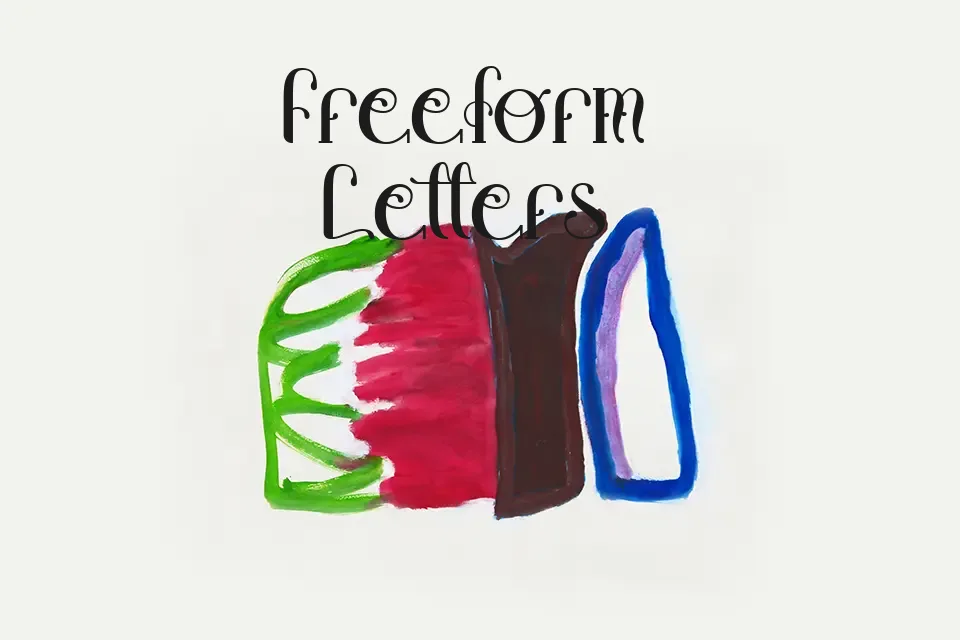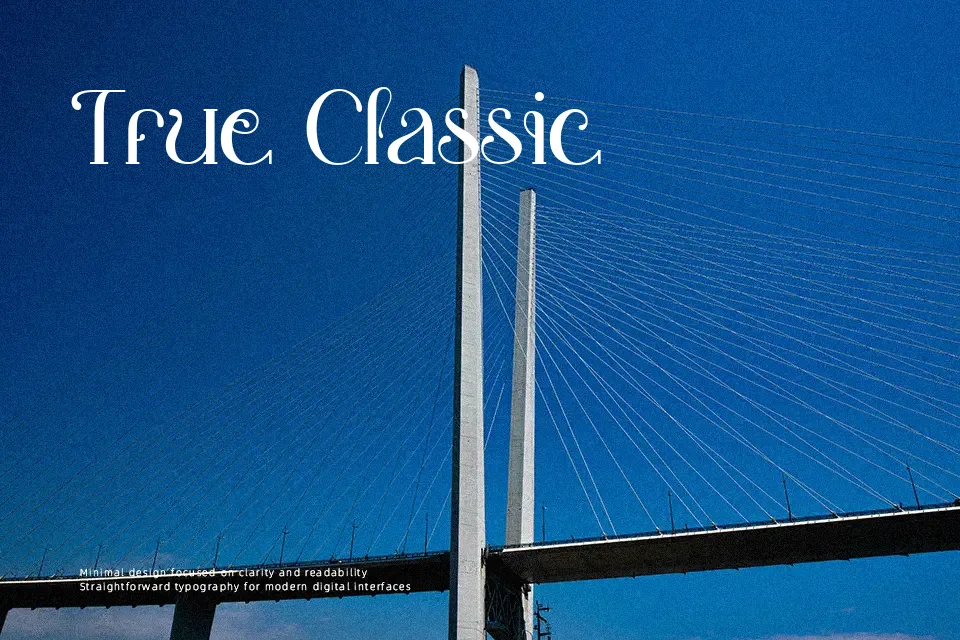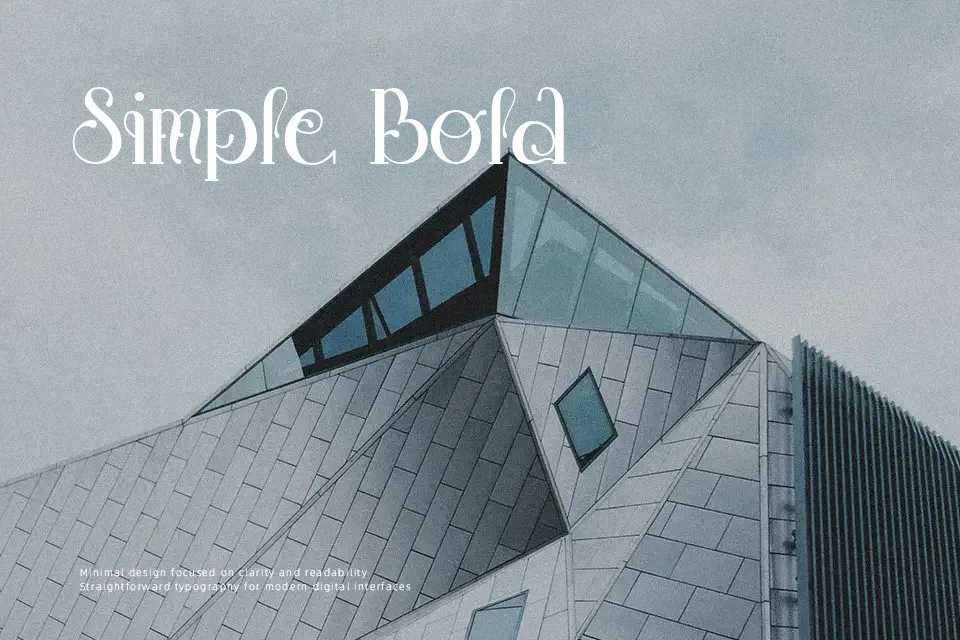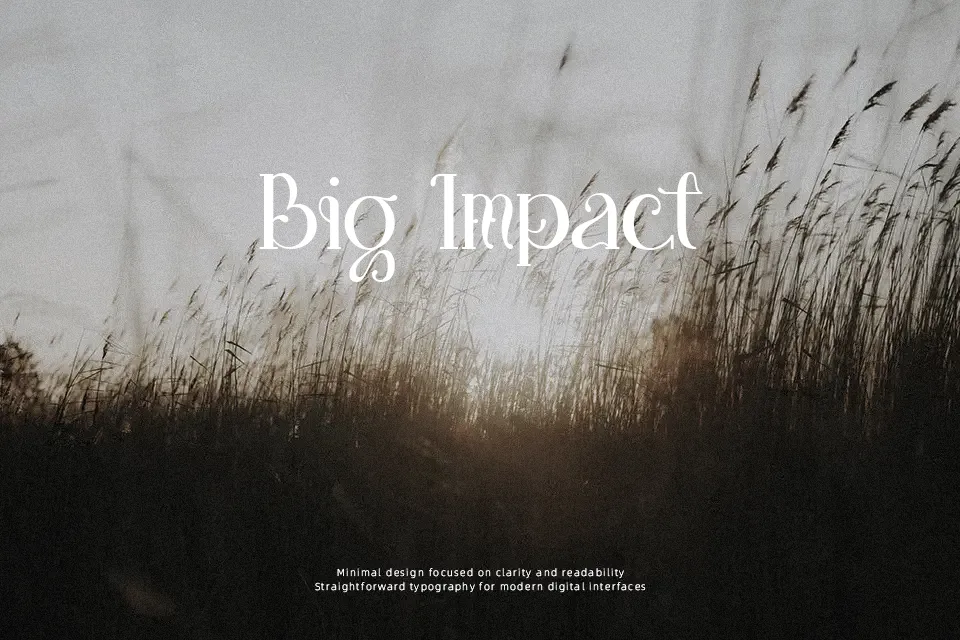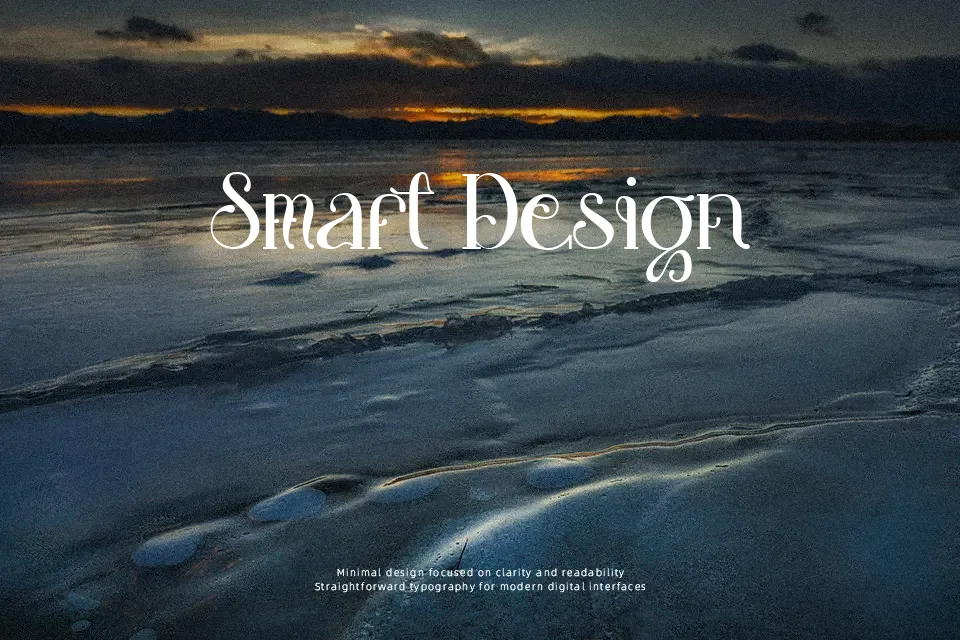
Angsoduo MT Font
Designed by Saiful Bahri
Angsoduo MT combines the structural discipline of modern serif letterforms with nostalgic decorative details that feel plucked from mid-century design archives. The strokes terminate in playful loops and curls, adding whimsy without losing readability at display sizes. Contrast between thick and thin strokes is moderate, giving the typeface enough weight variation to feel refined yet accessible. It works particularly well when brands need to telegraph both professionalism and creative personality—think craft breweries, design studios, or fashion labels that want warmth without looking overly casual. However, the decorative terminals become visually noisy when set below 18pt, making it unsuitable for body copy or UI elements. While it excels in headlines and logo lockups where character individuality shines, the limited glyph set (280 characters) means multilingual projects or accent-heavy languages may encounter missing symbols. The slant variant adds energy to layouts but can feel forced in conservative contexts where upright serifs are expected.
Best For:- Magazine covers and editorial headlines
– Independent brand logos with vintage appeal
– Event posters and concert flyers
– Packaging for artisanal products
Not Ideal For:- Body text or paragraph-length content
– Corporate financial reports
– Mobile UI or small-screen applications
– Projects requiring extensive language support
Perfect for branding, editorial, and fashion, with a artistic and decorative style.